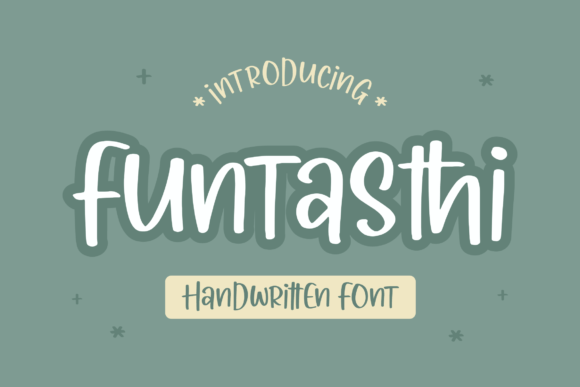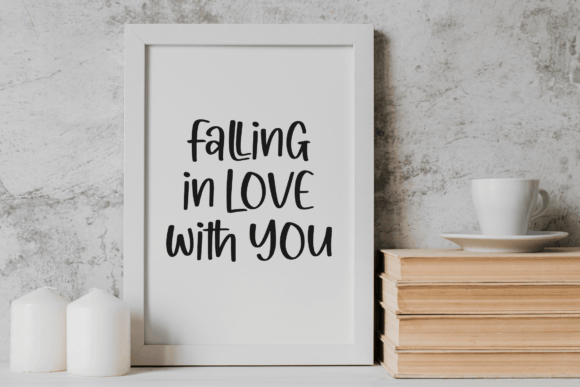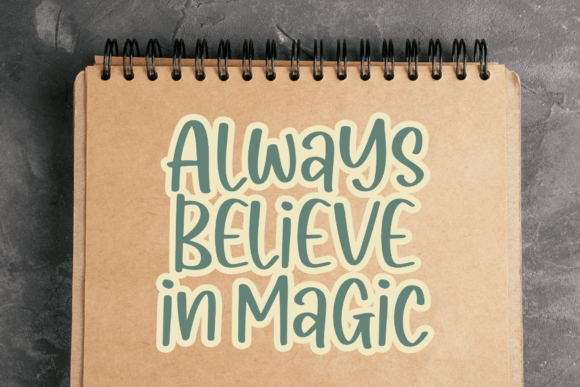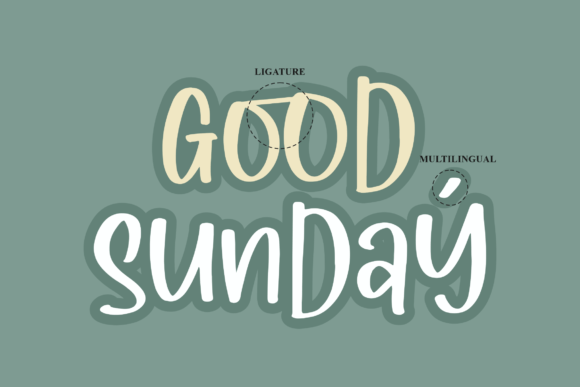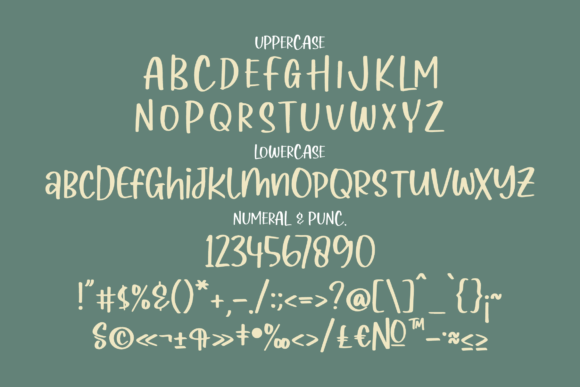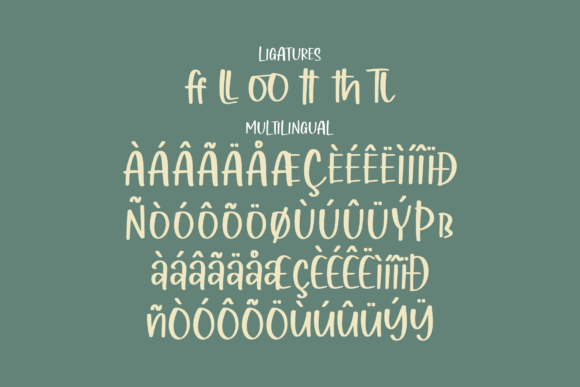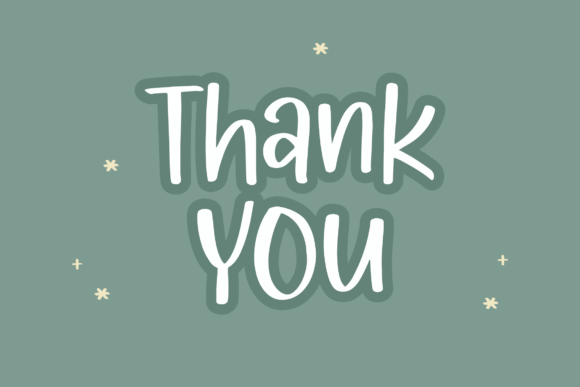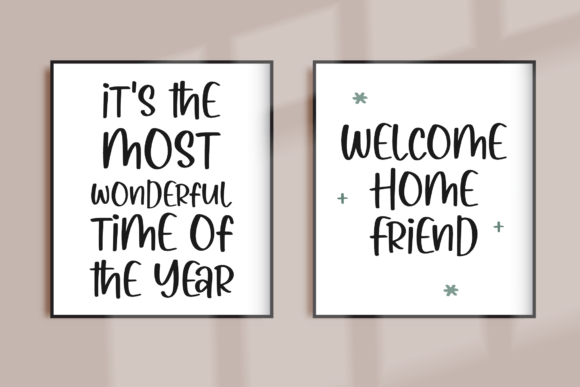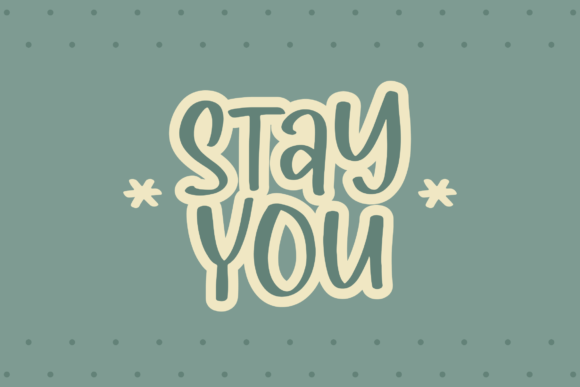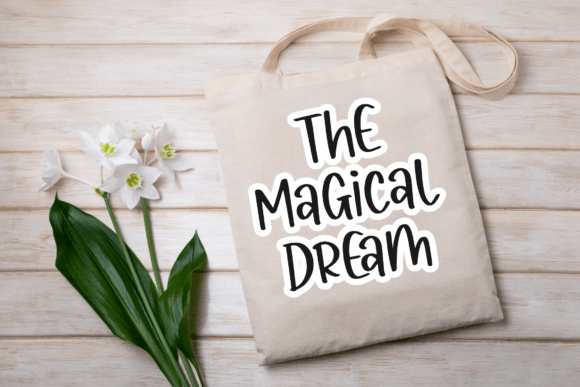
Funtasthi Font
About Funtasthi Font
Funtasthi is a charming handwritten font that adds a delightful touch to a wide variety of creative projects. Its beauty and versatility make it an ideal choice for an array of design applications, allowing you to infuse a playful and graceful script into your projects.
The font’s adaptability is evident in its suitability for logos and branding projects. Funtasthi’s beautiful handwritten style brings a unique and personalized feel to logos, contributing to the creation of a distinctive brand identity that stands out with a touch of charm.
For homeware designs, product packaging, and mugs, Funtasthi brings a sense of whimsy and style. The font’s playful yet elegant script enhances the overall visual appeal, making your products visually appealing and leaving a lasting impression on your audience.
Funtasthi is well-suited for conveying quotes, creating posters, and embellishing shopping bags. Its handwritten charm adds character and warmth to these applications, ensuring that your messages are not only visually captivating but also exude a sense of personality.
When applied to T-shirts, book covers, name cards, invitation cards, greeting cards, and labels, Funtasthi introduces a beautiful script taste, elevating your designs with a touch of grace and individuality. The font’s fluid and expressive strokes contribute to a seamless integration into a variety of print materials.
In the realm of photography and watermark applications, Funtasthi provides a lovely and stylish signature, adding a subtle yet distinctive touch to your images. Special events, such as weddings or celebrations, are enhanced by the font’s playful elegance, creating an atmosphere that is both festive and refined.
In summary, Funtasthi is not just a font; it’s a versatile design asset that brings beauty and charm to your projects with its delightful handwritten script. Whether you’re working on branding, product design, print materials, or special events, Funtasthi is a beautiful choice for adding a script taste to your lovely and creative endeavors.